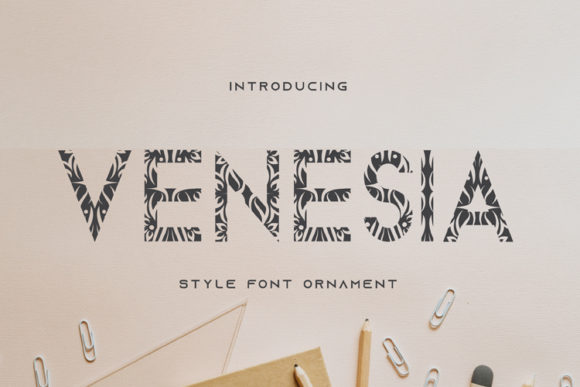
Get ready to be mesmerized by Venesia Font, the captivating decorative font that will infuse your designs with a vibrant burst of energy! Created by the talented ed.creative, this extraordinary font exudes originality, leaving an unforgettable impression on all who encounter it.
Immerse yourself in the allure of Venesia Font, a masterpiece crafted to elevate your designs to new heights. Its unique and captivating characters dance across the page, drawing the eye and captivating the imagination. Whether you're designing a stunning website header, an eye-catching poster, or a memorable logo, Venesia Font is the ultimate choice for making a lasting impact.
Unleash your creativity and let Venesia Font guide you on an artistic journey like no other. Its meticulously crafted curves and striking details will transform your designs into works of art, captivating your audience and leaving them in awe. With Venesia Font as your ally, you'll discover a world of endless possibilities, where your imagination reigns supreme.
So, why settle for ordinary when you can embrace the extraordinary? Embrace the power of Venesia Font today and unlock the gateway to a world of design brilliance. Elevate your projects to new heights, captivate your audience, and leave an indelible mark on the world. Experience the magic of Venesia Font and unleash your creative genius!